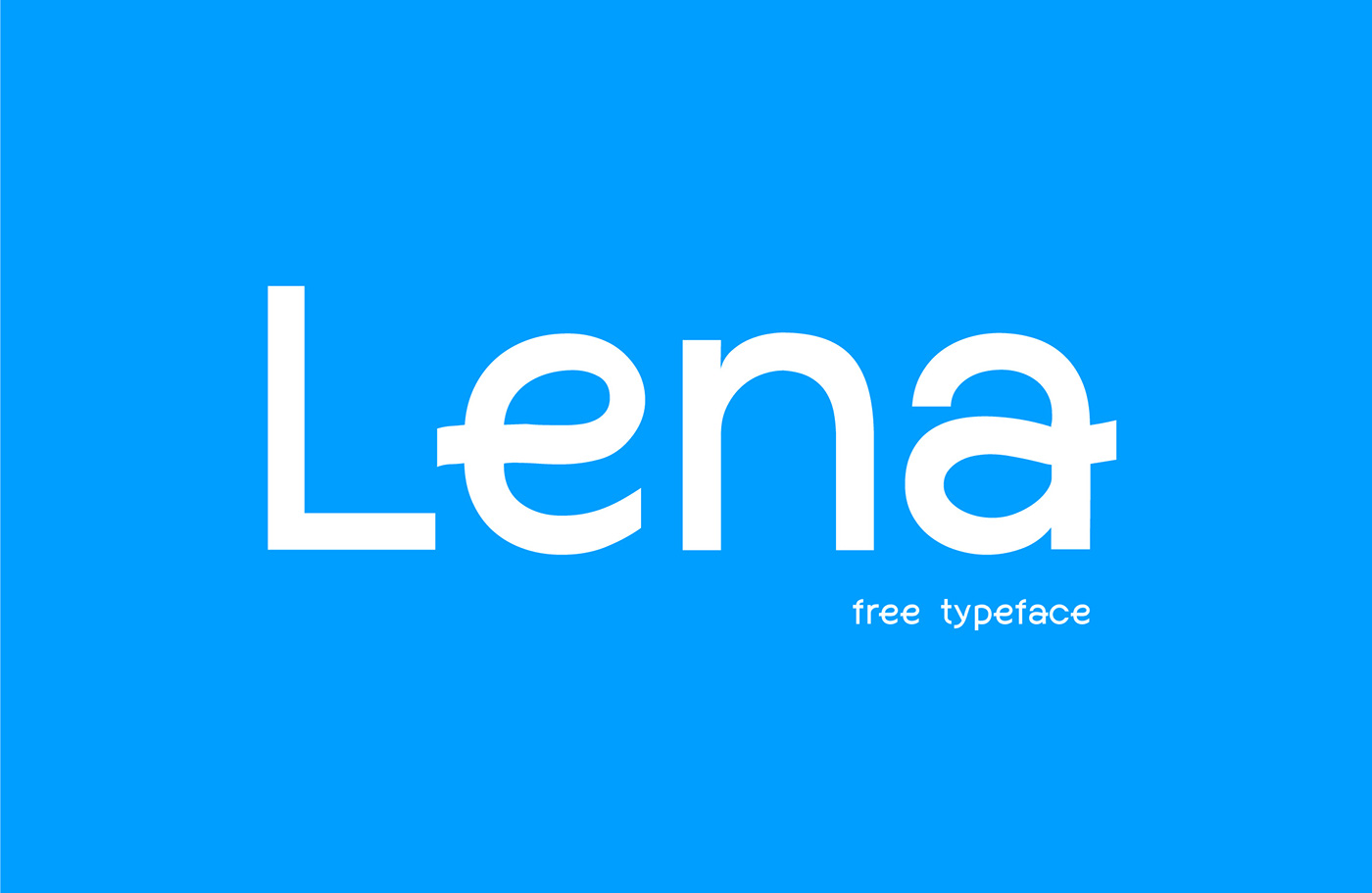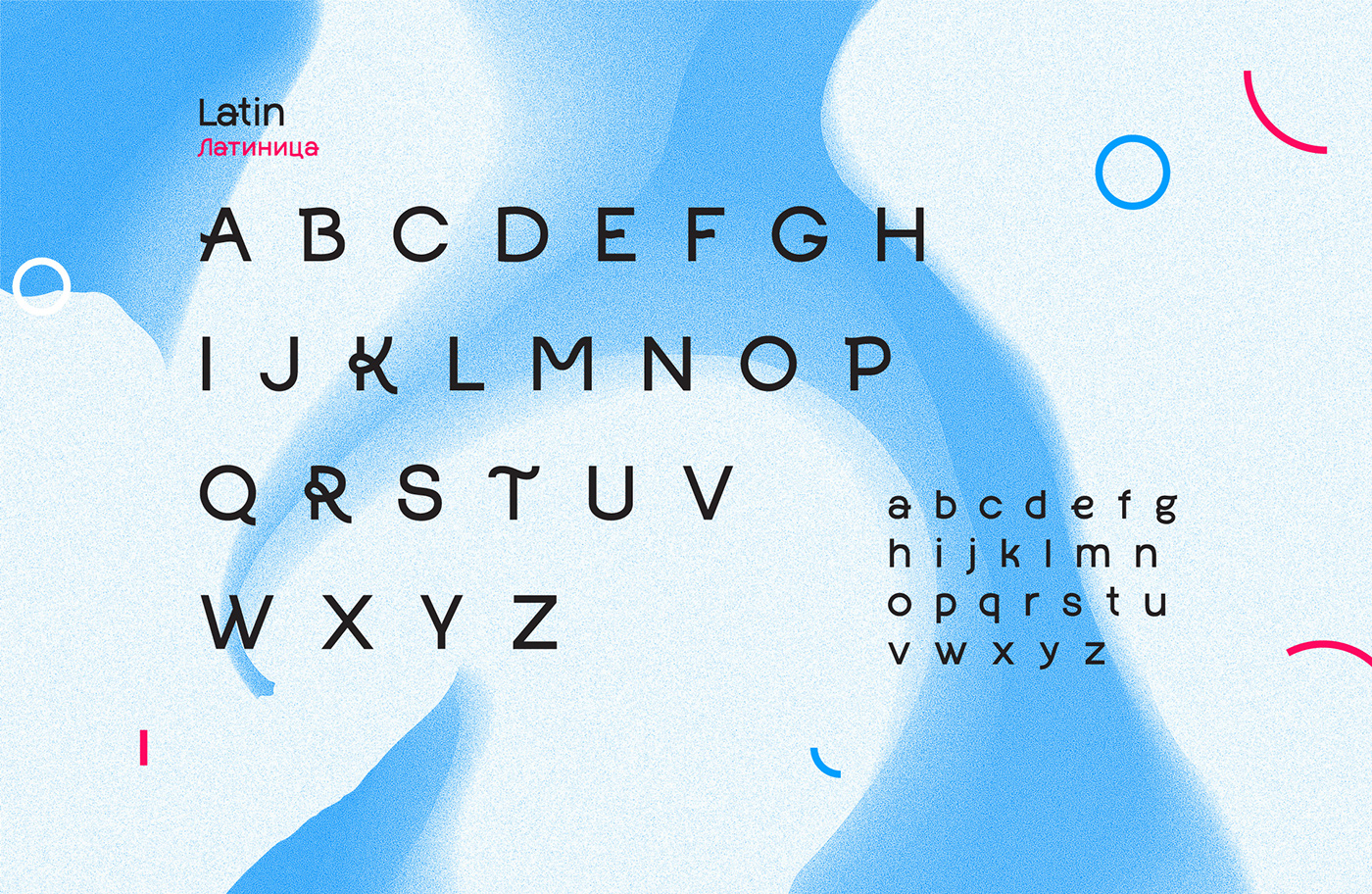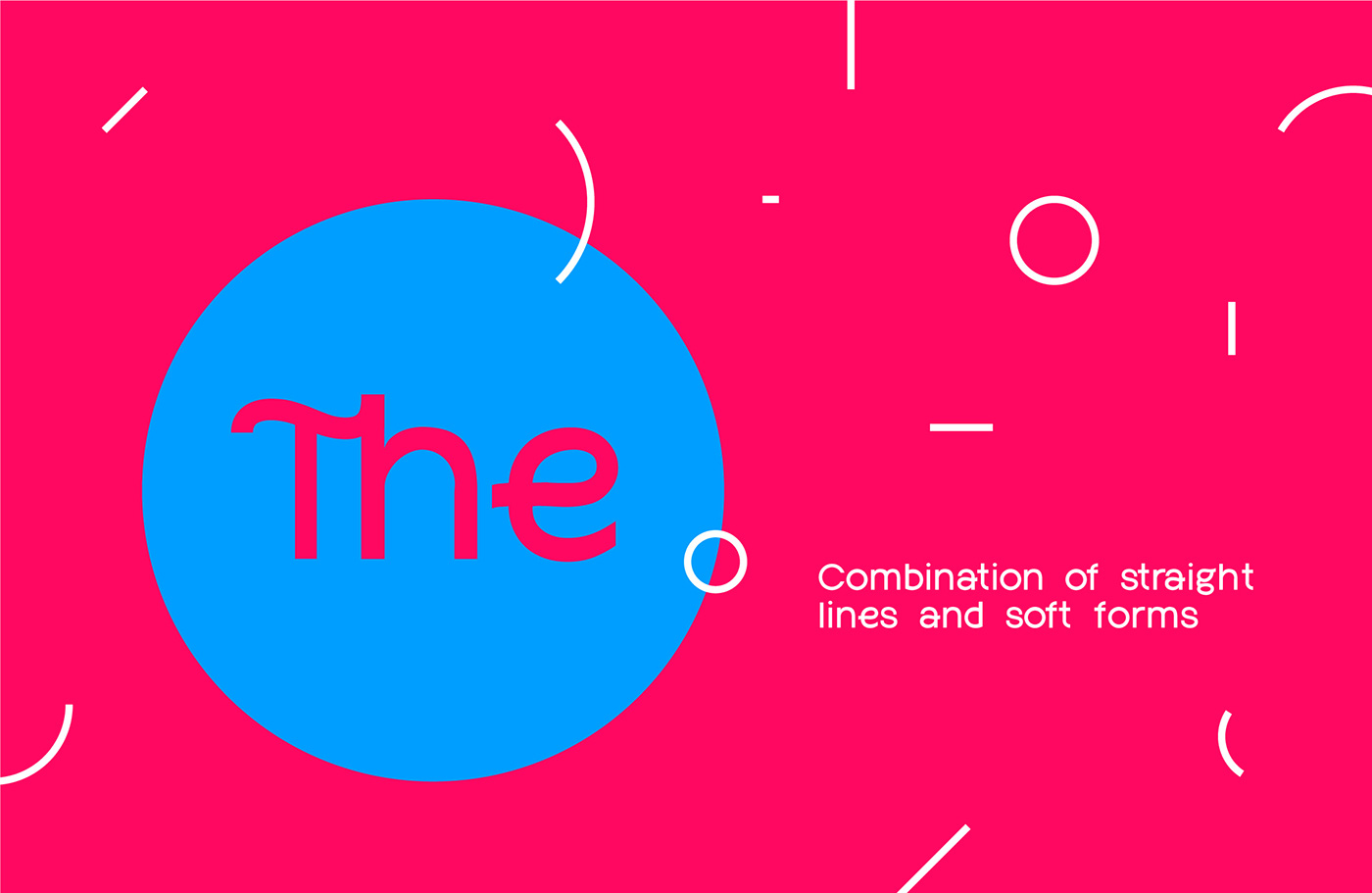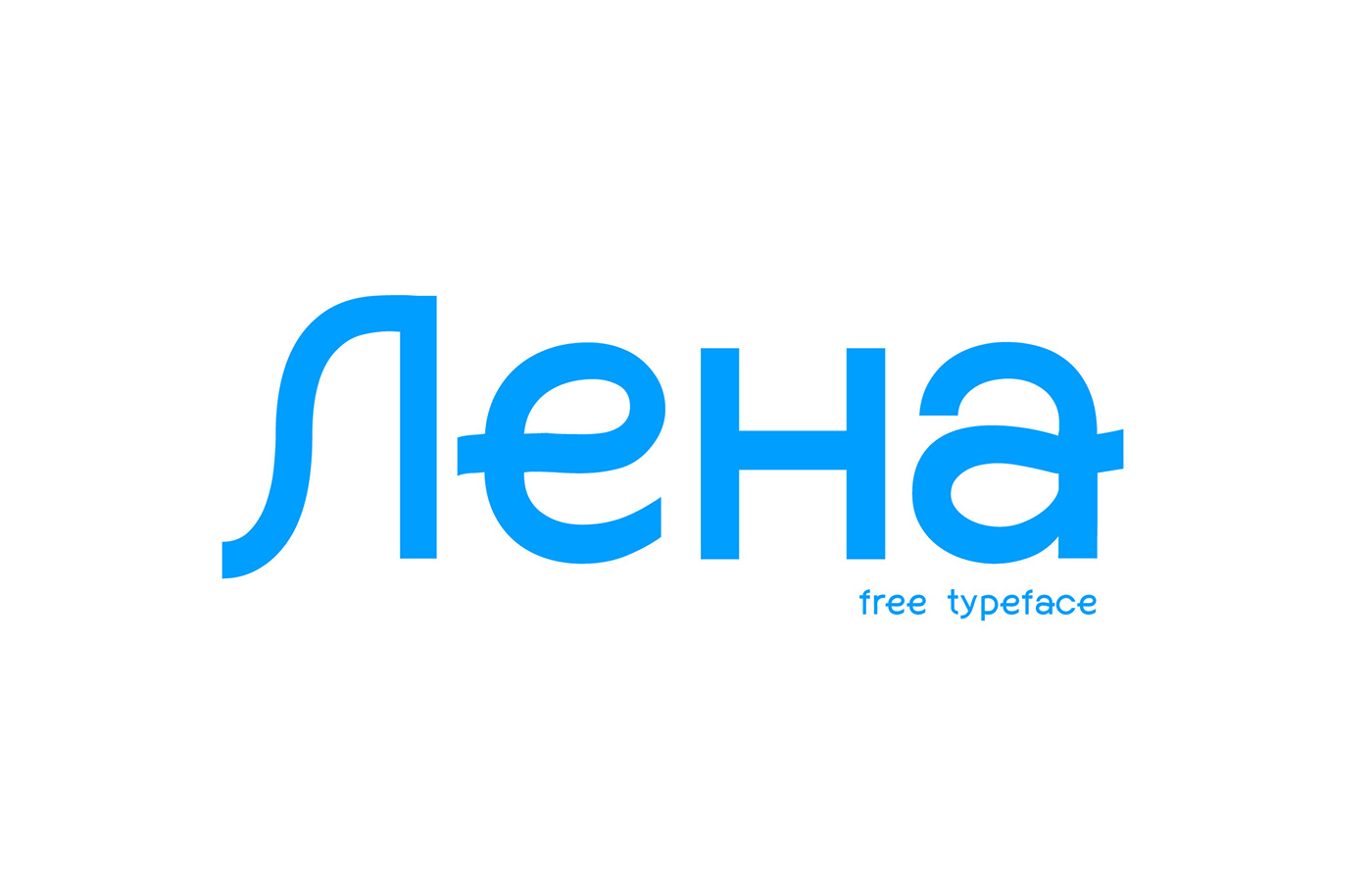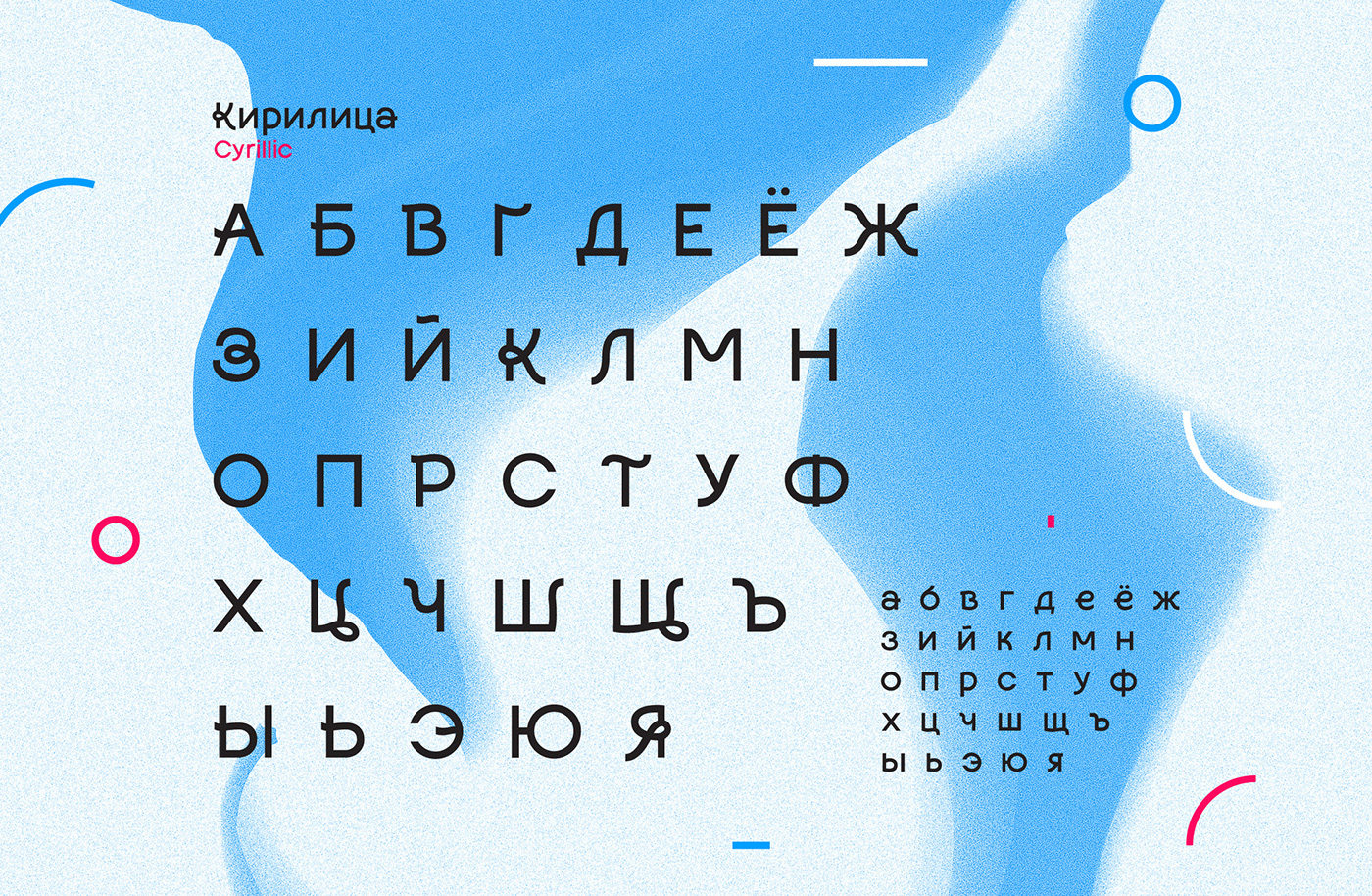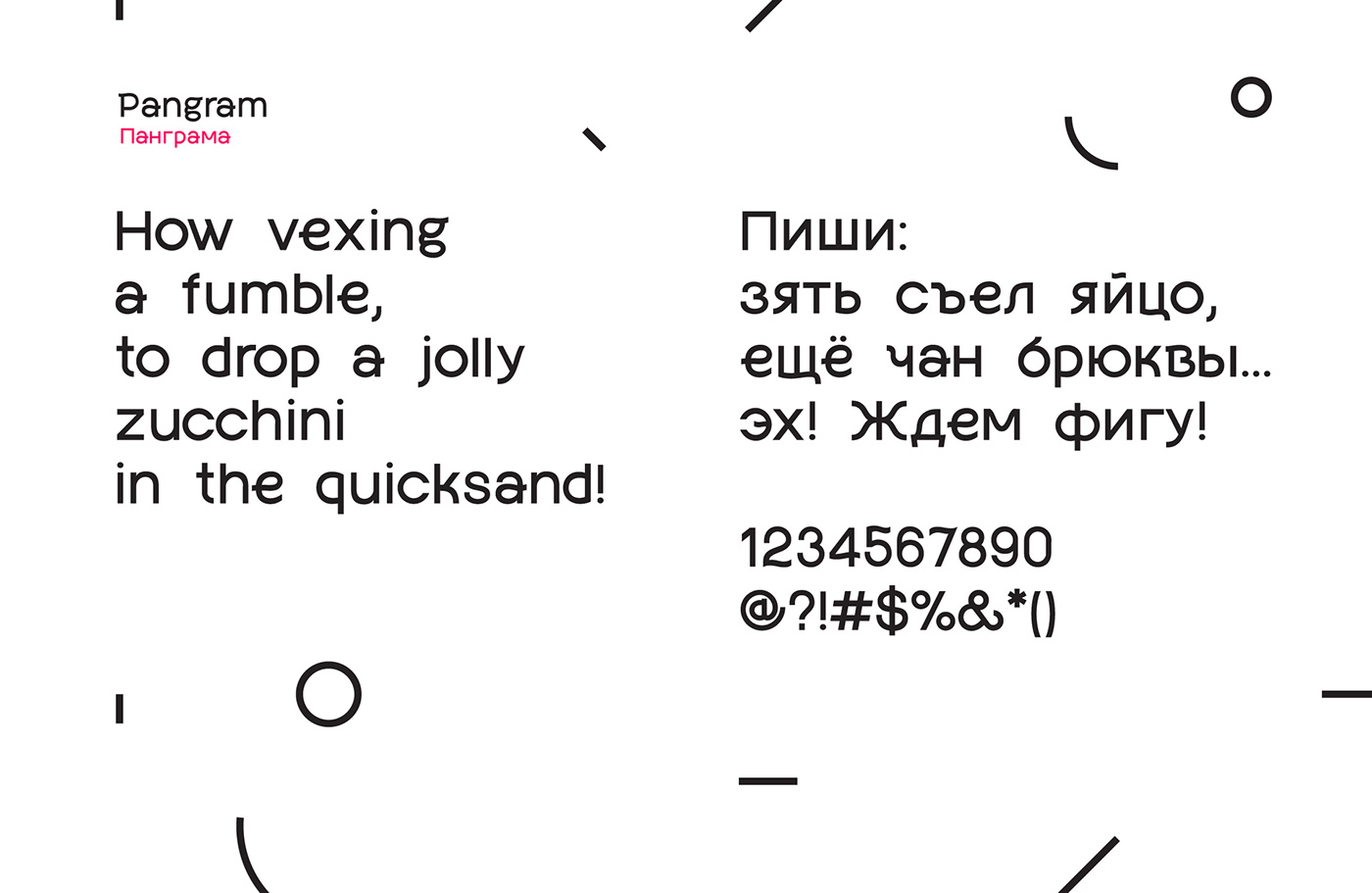
Designed by Vsevolod Abramov, Lena is a unique and simple sans serif font that combines geometric with soft, curved forms. Free for personal use! Download Lena Font beneath the previews: